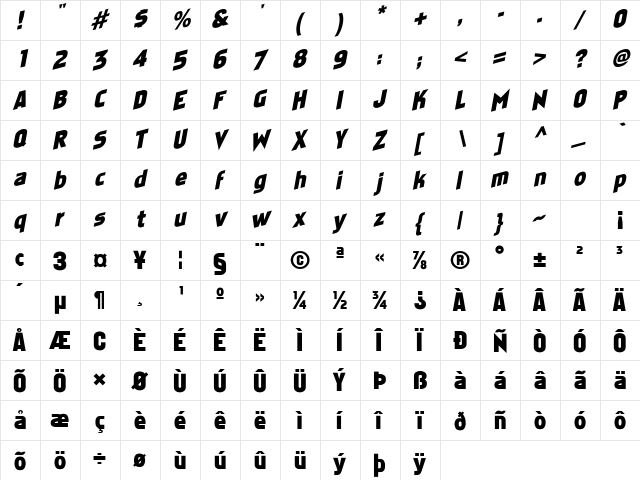
Faktosas-Slanted Normal
Design Context for Faktosas-Slanted Typeface
Faktosas-Slanted takes a measured approach to typography — its balanced proportions and neutral character make it a reliable workhorse for both digital and print work. Its italic angle brings a sense of urgency and motion to the letterforms.